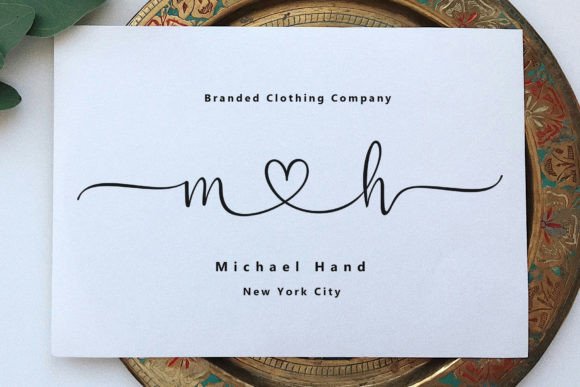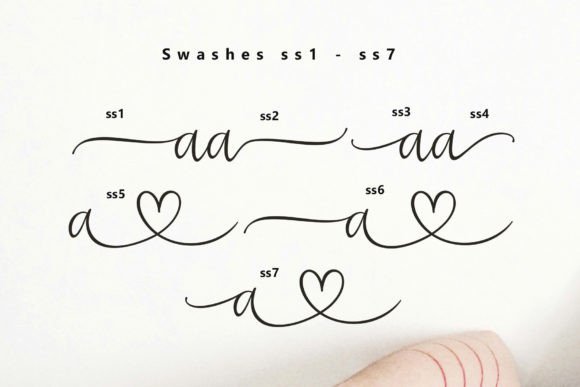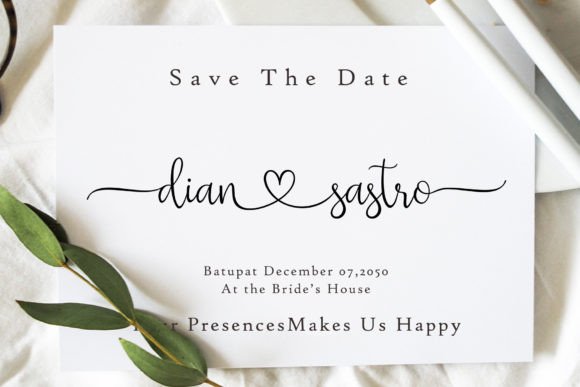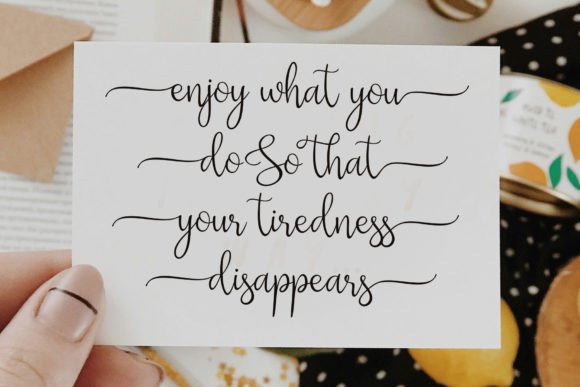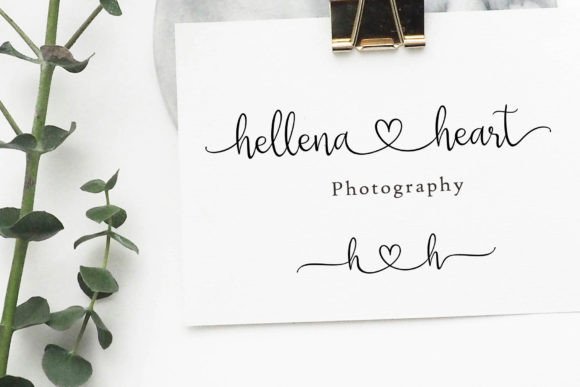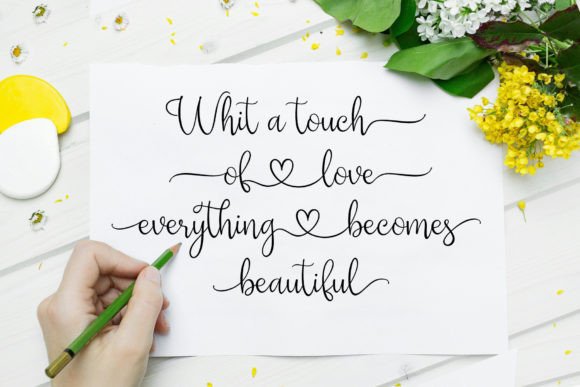
Introduction to Julia Smith Font Font
Fonts play a crucial role in design, and the Julia Smith Font font is a typeface that brings both character and versatility to any project. Whether you’re working on a branding project, a website, or a print design, the Julia Smith Font font offers a unique style that can elevate your work.
Julia Smith is a stylish and incredibly elegant script font.
It looks stunning on wedding invitations, thank you cards, quotes, greeting cards, logos, business cards and every other design which needs a handwritten touch .
Key Features of Julia Smith Font Font
Why Choose Julia Smith Font Font?
The Julia Smith Font font is more than just a typeface – it’s a design tool that helps you communicate your message with style and clarity. Its unique character set and versatile design make it suitable for a wide range of applications, from elegant invitations to bold headlines.
With its carefully crafted letterforms and balanced proportions, the Julia Smith Font font ensures readability and visual appeal across all mediums.
What makes Julia Smith Font font special?
The Julia Smith Font font stands out with its unique design, exceptional readability, and versatility across various design applications.